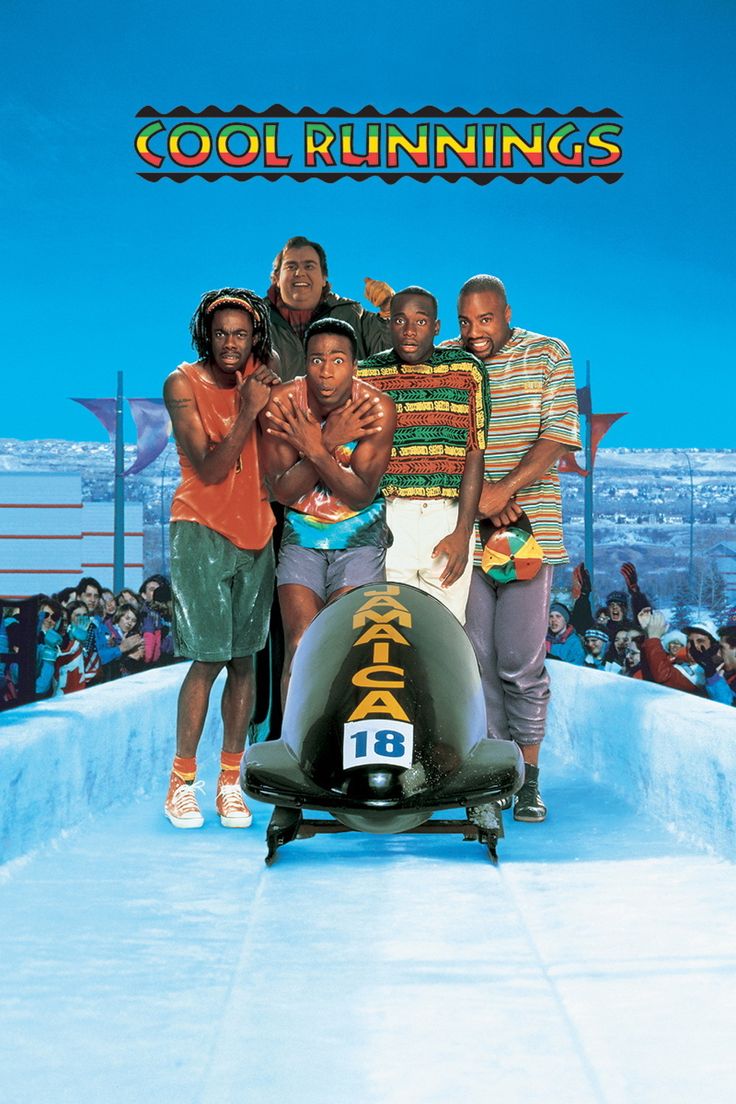
Cool Runnings Font
The poster's film title features the powerful Lithos Bold font, paying homage to ancient Greek inscriptions and their geometric letterforms designed by Carol Twombly.